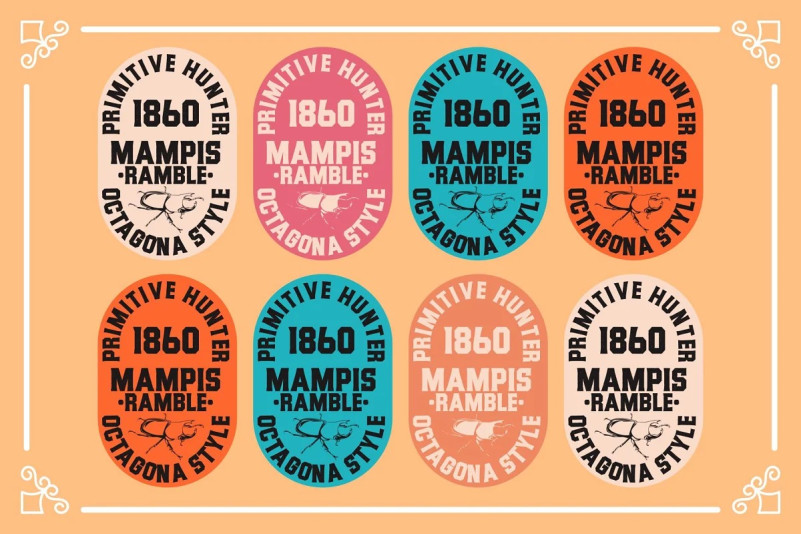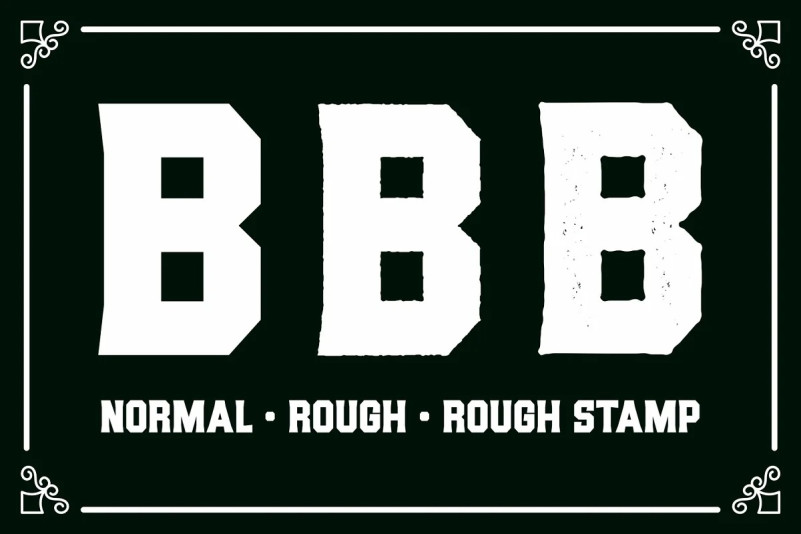
Balgika Font
Balgika is a family of vintage serifs, Inspired by Western culture Vintage Wild and inspired with a modern vintage touch packed strong and dynamic, there are three options of normal, rough and rough stamping effects which make this Font great for printing logos, Signage, Pubs, Shirt Designs, Tattoo Shops, Barbershops, Handmade Brands, anything to do with vintage style, Etc